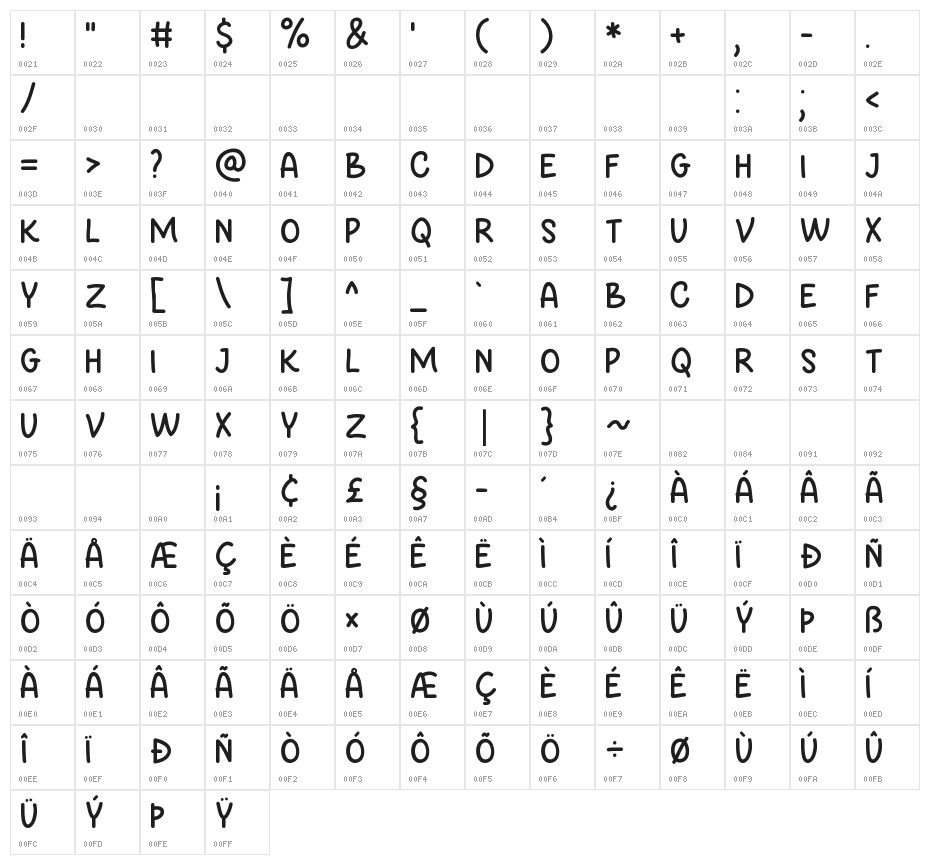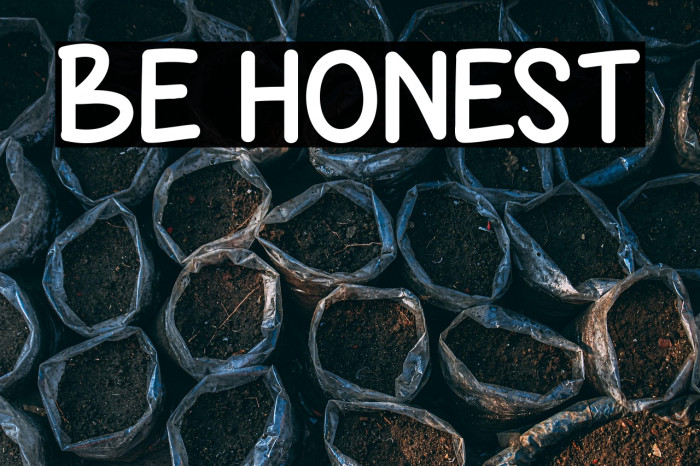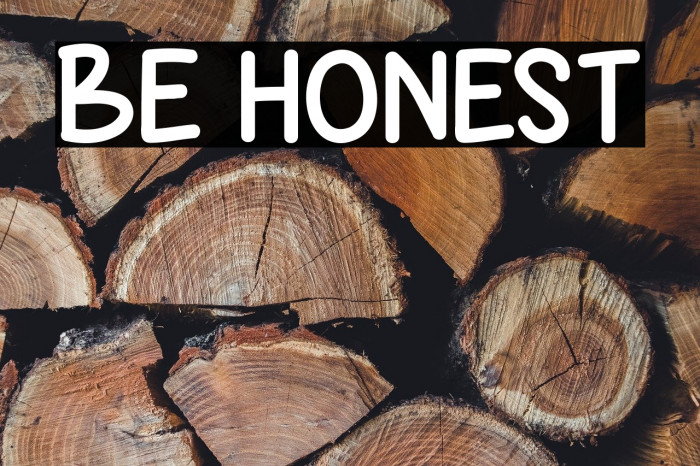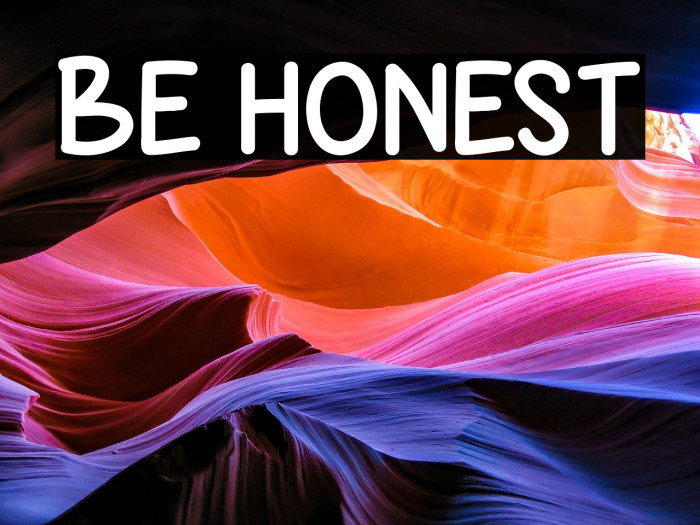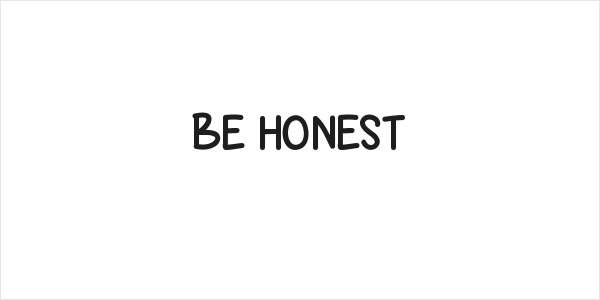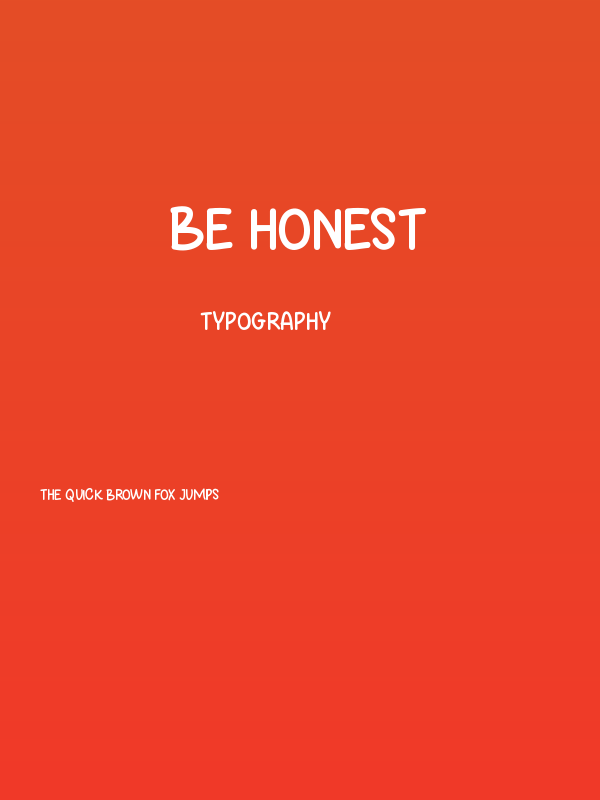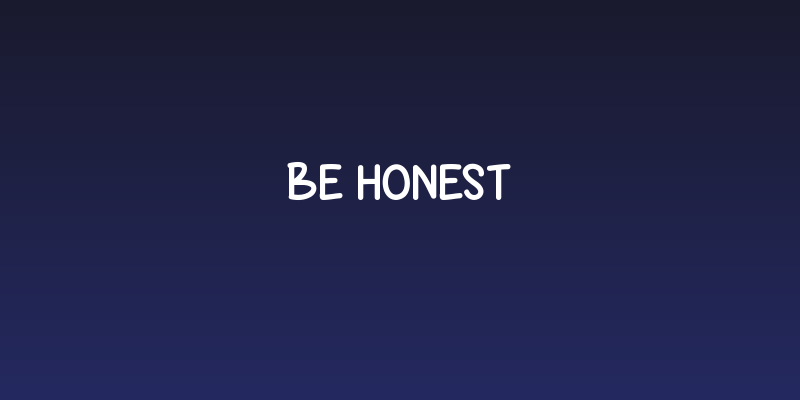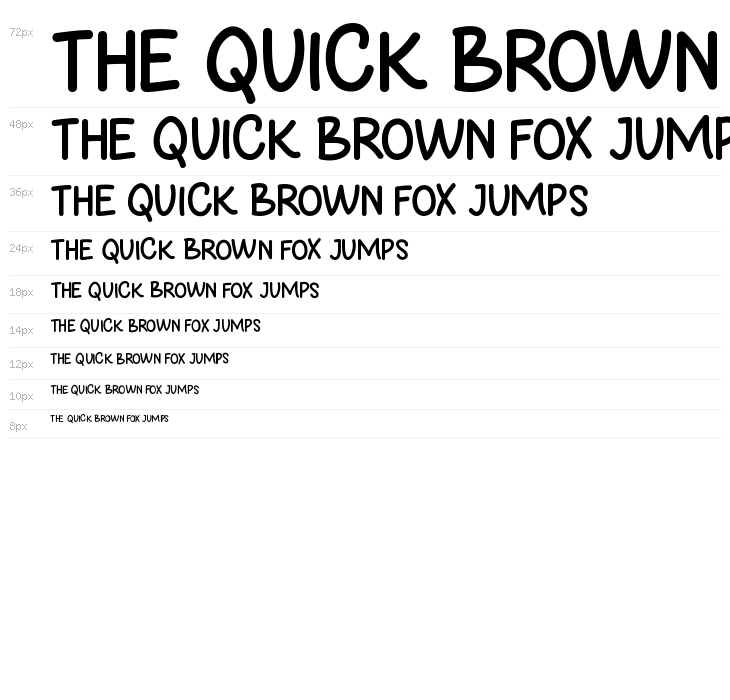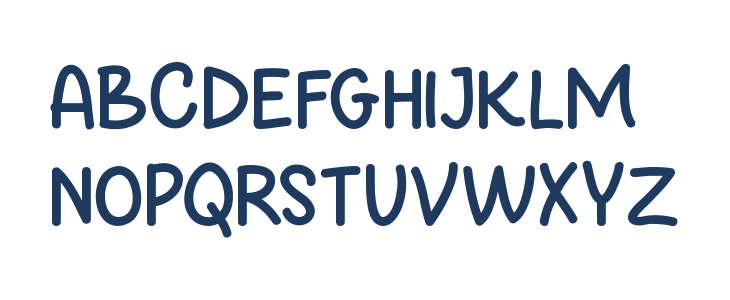
Be Honest Font
Be Honest Description
This font features a playful and informal handwritten style, characterized by its rounded, bold strokes and slightly irregular letterforms. The uppercase and lowercase letters maintain a consistent height, contributing to a cohesive appearance. The characters are well-spaced, ensuring readability while retaining a casual aesthetic. The numerals and special characters follow the same design principles, integrating seamlessly with the alphabet. This font's friendly and approachable look makes it suitable for a variety of creative projects.